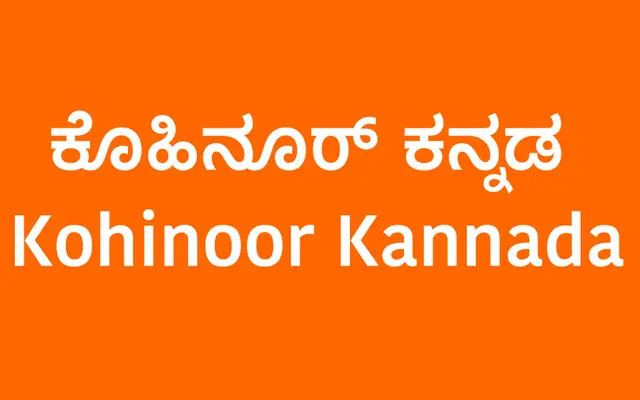
Kohinoor Kannada
The Kannada branch of ITF's wide-ranging Kohinoor family, offering five weights for text use in the Kannada script.
One of many script-specific members of the Kohinoor family from Indian Type Foundry, this release covers the Kannada script in five weights from Light to Bold. The design follows the humanist sans conventions of the broader Kohinoor system, prioritising legibility for body text applications. No italics or condensed cuts are included, keeping the family focused on straightforward typesetting needs.
Part of the broader Kohinoor multi-script family, Kohinoor Kannada is a humanist sans-serif designed for the Kannada script, following the design conventions of the wider Kohinoor system which balances legibility with clean, contemporary forms.